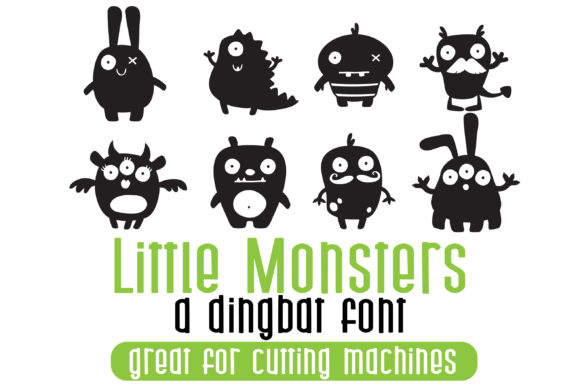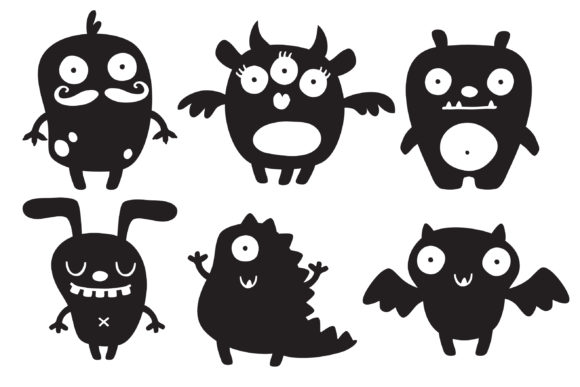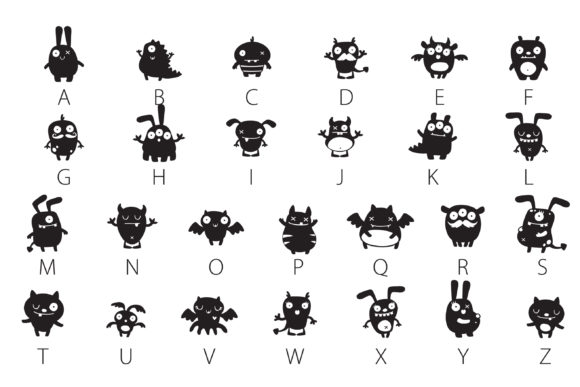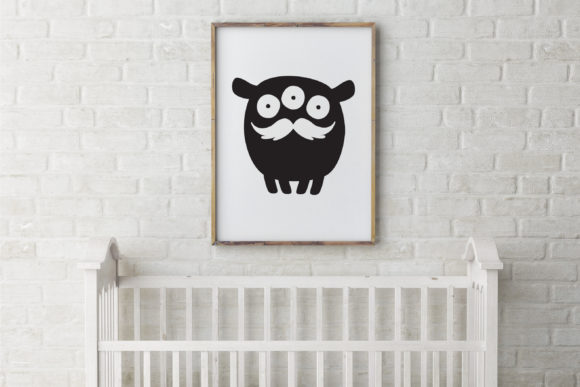
Little Monsters Font: Cute Dingbats for Cricut & DIY Projects!
About the Little Monsters Font
Meet Little Monsters Font, a stunning font that brings a touch of elegance and professionalism to any design. Little Monsters contains of 26 cute and whimsical monster images. This unique dingbats font will add a whimsical charm to any creative project!
Little Monsters shines in projects needing a playful, friendly touch. Ideal uses include children’s books, whimsical branding for sweet shops or toy stores, greeting cards, and playful packaging designs. Its charm also works well in short headlines or as decorative elements within larger designs. However, avoid using it for body text or lengthy paragraphs; its unique character isn’t suited for readability in large blocks of text, and its low x-height makes it unsuitable for UI elements.
Pairing Little Monsters effectively requires considering its whimsical nature. A clean sans-serif like Open Sans or Lato provides a solid, readable counterpoint for body copy. For a more sophisticated feel, pair it with a classic serif such as Garamond or Playfair Display for titles and headings. These pairings maintain visual interest without overwhelming the overall design.
The font’s core personality is undeniably playful and friendly, making it perfect for brands targeting a younger audience or those wishing to project a lighthearted and approachable image. Avoid pairing it with overly serious or formal fonts as this will create visual dissonance.
Little Monsters Font Usage Examples
Little Monsters Font Example